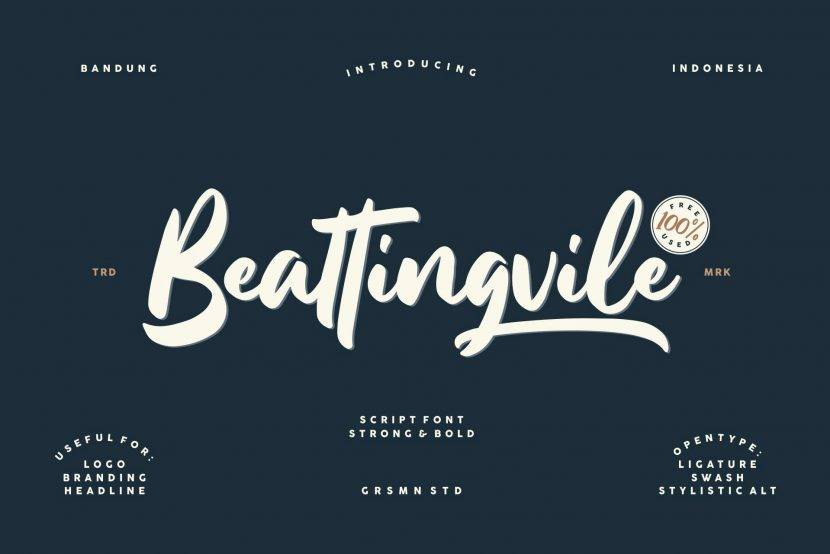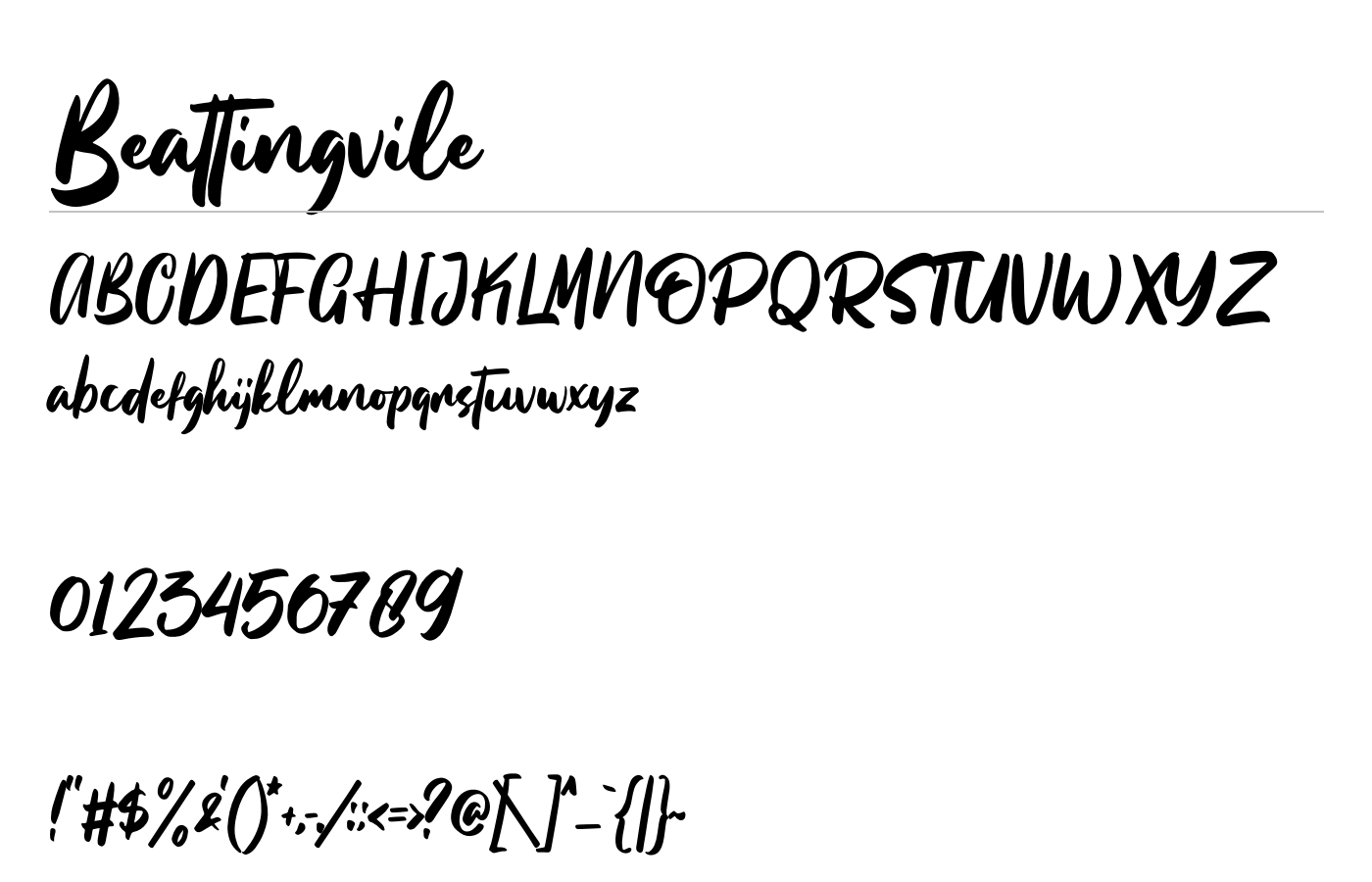
Beattingvile Script Font is a lively and modern script typeface that features smooth, flowing strokes with moderate thickness, creating an energetic yet approachable feel. Its handwritten style with varying stroke widths and playful letterforms makes it ideal for branding, logos, invitations, and creative projects seeking a personal and cheerful touch. This font works especially well in headlines and decorative uses where a casual, friendly vibe is desired.
Beattingvile Script Font
About Beattingvile Script Font
| Font family | Beattingvile Script Font |
| Designer | Garisman Studio |